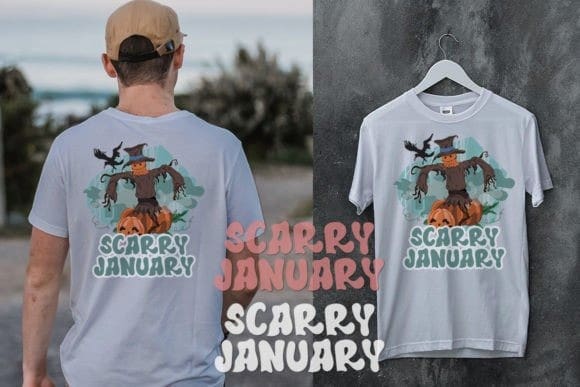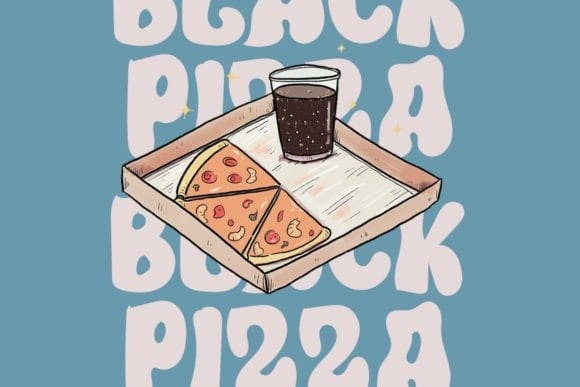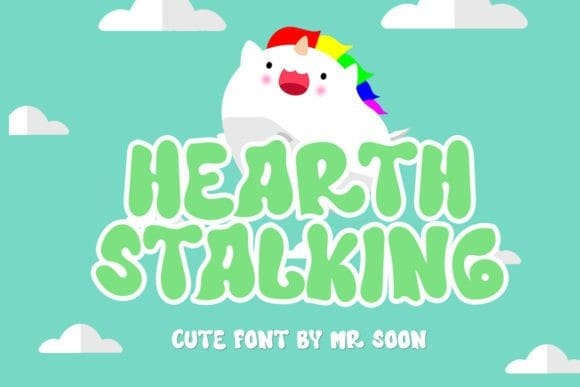
Hearth Stalking Font
Hearth Stalking Font is a beautiful and sweet font. It is fresh, clean, and elegant. This font will look amazing in a great amount of projects, both formal and informal. It will add an incredibly joyful touch to your designs. This font is created to simplify your design. By using this font, your projects will look more beautiful!